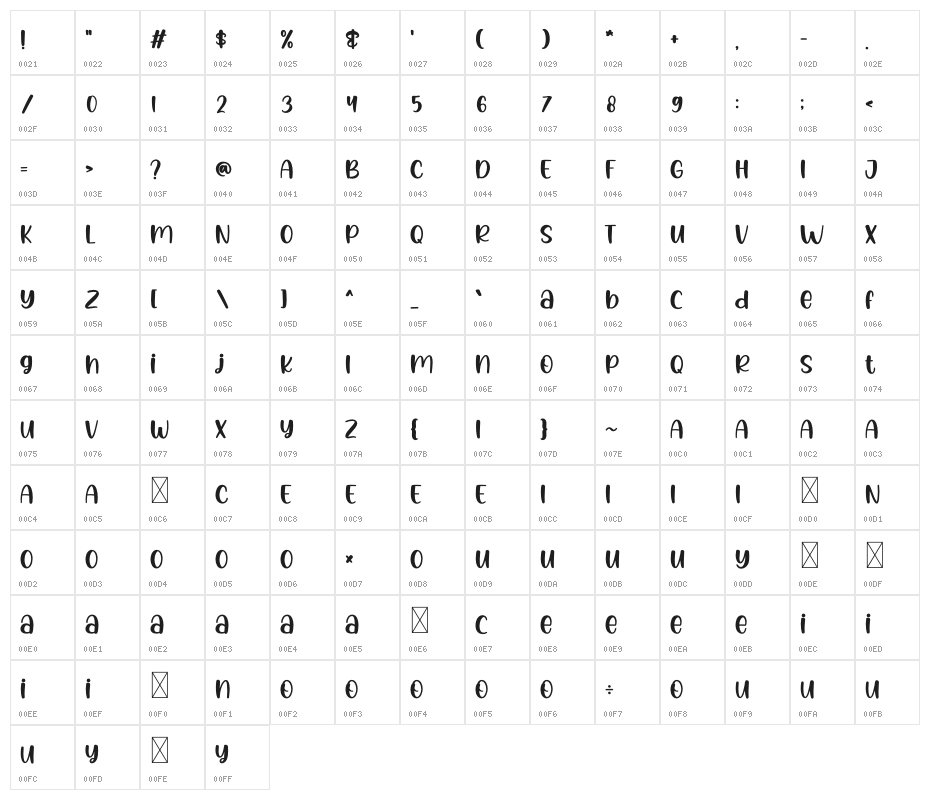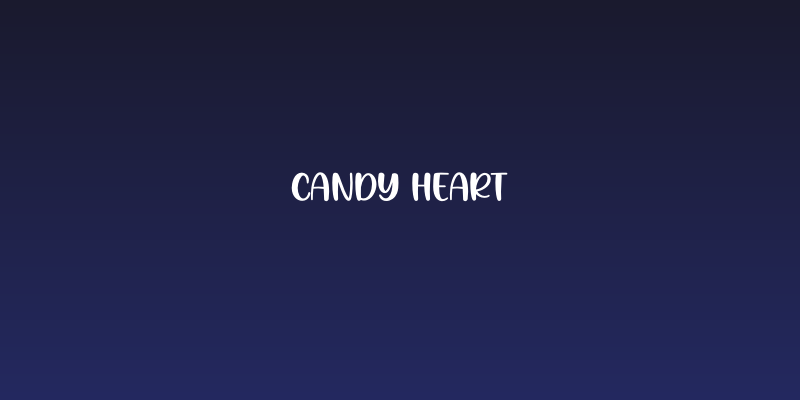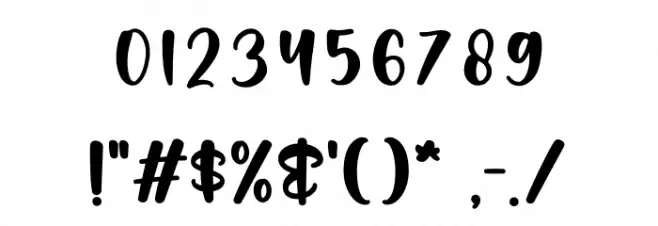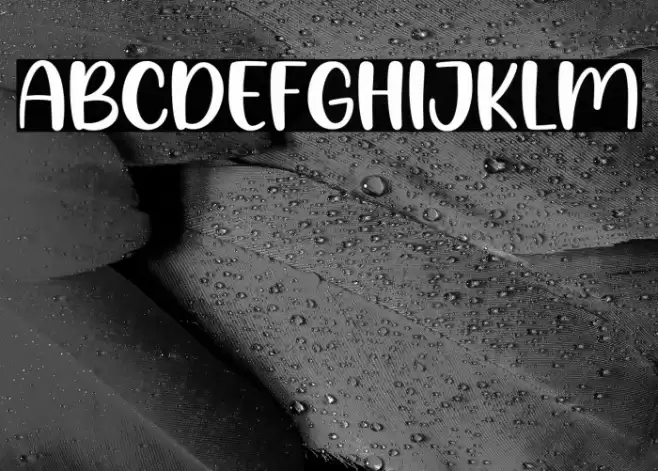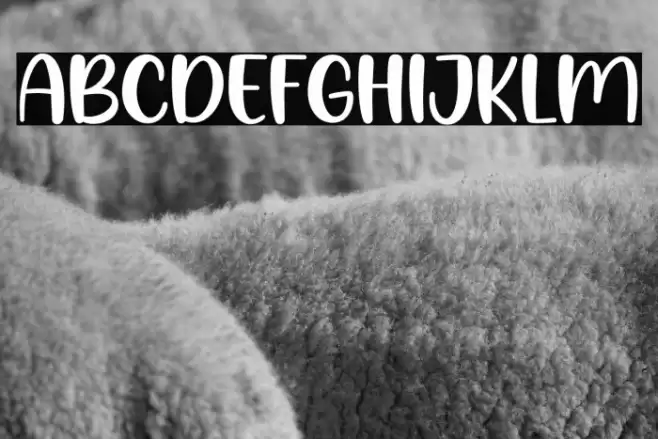
Candy Heart Font
Candy Heart Description
This playful and whimsical font features rounded, bold characters with a handwritten style. The letters are slightly irregular, giving it a casual and friendly appearance. The strokes are thick and consistent, providing a strong presence on the page. The font includes both uppercase and lowercase letters, numerals, and a variety of special characters. Its design is reminiscent of hand-drawn lettering, making it ideal for projects that require a personal touch. The overall look is approachable and fun, suitable for creative and informal contexts.
| Proposed Projects | Ideal for greeting cards, children's books, playful branding, and social media graphics. |